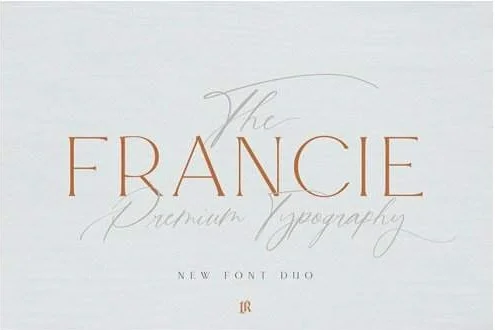
Francie Font
Francie Font is perfect for French café branding, Parisian boutique logos, elegant fashion labels, romantic wedding invitations, French bistro menus, luxury cosmetic packaging, chic lifestyle magazines, sophisticated wine labels, European travel brochures, and refined cultural event materials.
Francie Font is exciting because it captures the quintessential charm and sophisticated elegance of French typography tradition through graceful letterforms that evoke Parisian style and timeless French refinement. This beautifully crafted typeface combines classic French calligraphic influences with contemporary design sensibilities, making it perfect for brands that want to communicate European sophistication and cultural authenticity.
The Francie Font family includes elegant regular and italic weights with French-inspired character styling, along with decorative flourishes and alternate letterforms. The font features sophisticated ligatures, graceful swashes, and refined details that enhance its Parisian personality and provide designers with comprehensive typographic options for luxury applications.
The French sophistication of Francie Font makes it an essential tool for luxury brands, cultural institutions, and businesses that want to establish connections with French heritage and European refinement. The font's elegant character helps communicate values of quality, tradition, and sophisticated taste that resonate strongly with consumers seeking premium experiences and authentic cultural connections.
Fashion houses, fine dining establishments, and luxury retailers consistently choose Francie Font for its ability to instantly communicate French elegance and Parisian sophistication through typography alone. The font excels in applications where establishing cultural credibility and luxury positioning are crucial to brand success, making it particularly effective for fashion, beauty, and lifestyle brands targeting sophisticated consumers.
This font's comprehensive character set includes French-styled letterforms, elegant numerals, sophisticated punctuation marks, and specialized symbols that support authentic European typography composition. The careful attention to French typographic traditions ensures genuine cultural appearance while maintaining contemporary functionality for Francie Font Free Download across all luxury and cultural design applications.